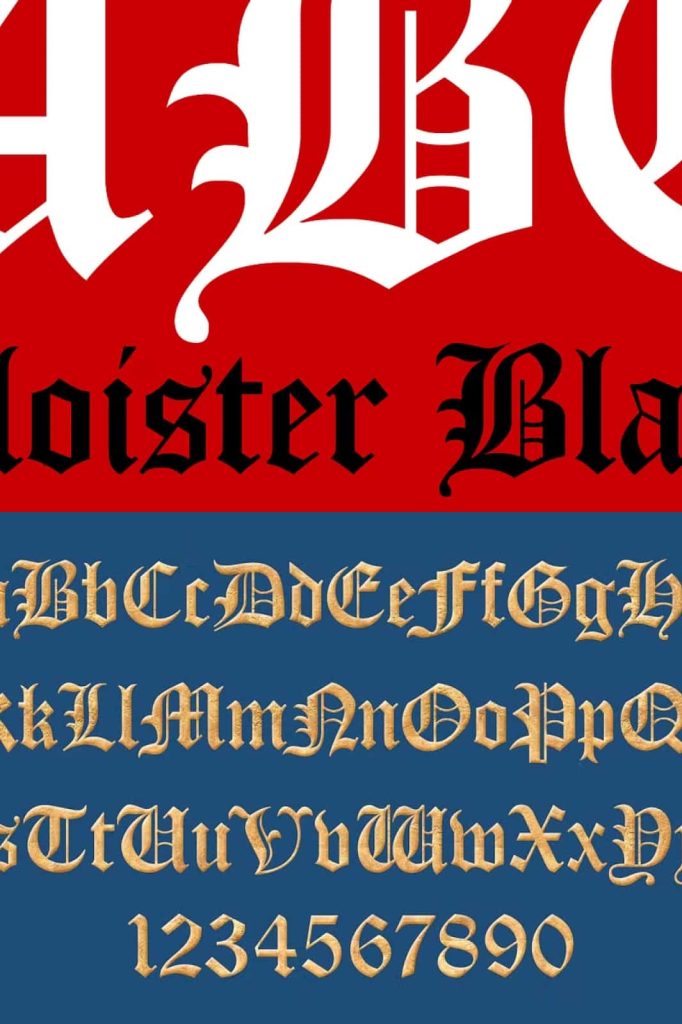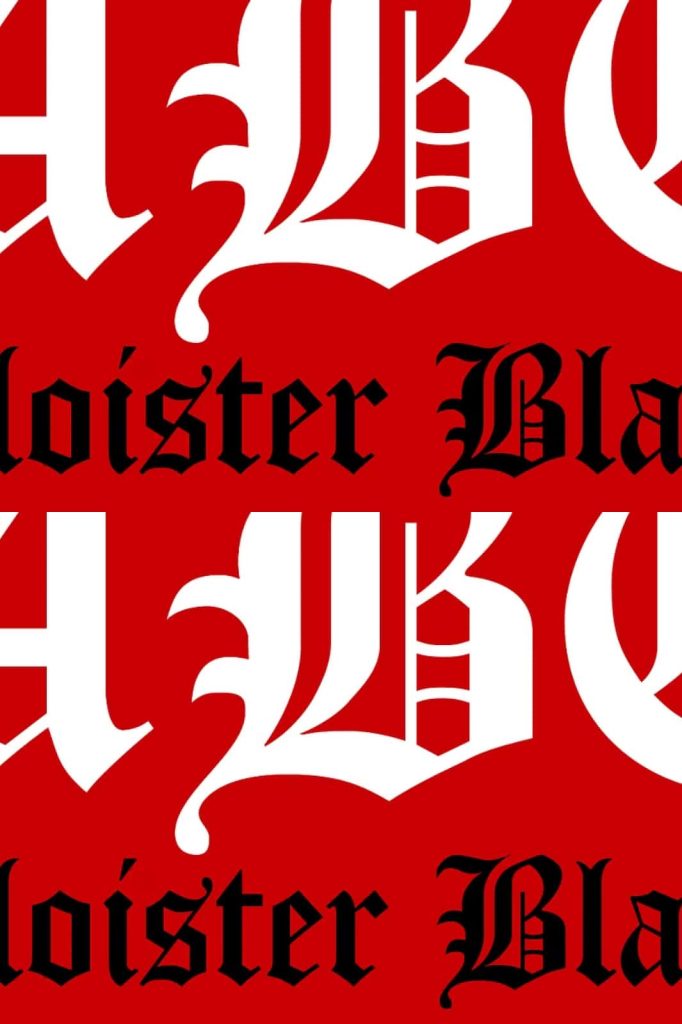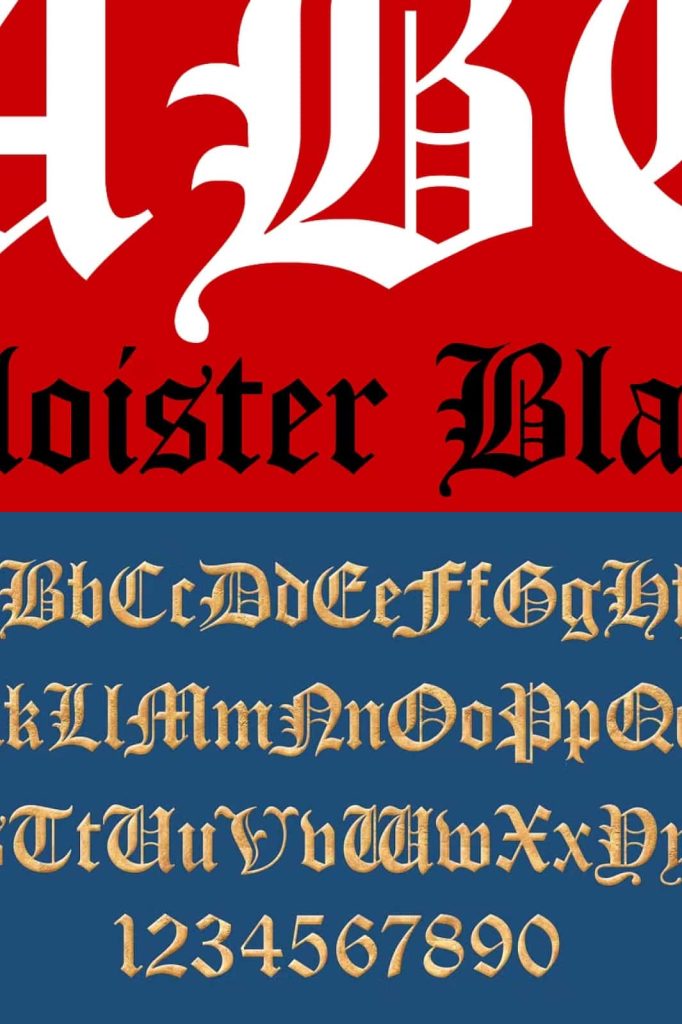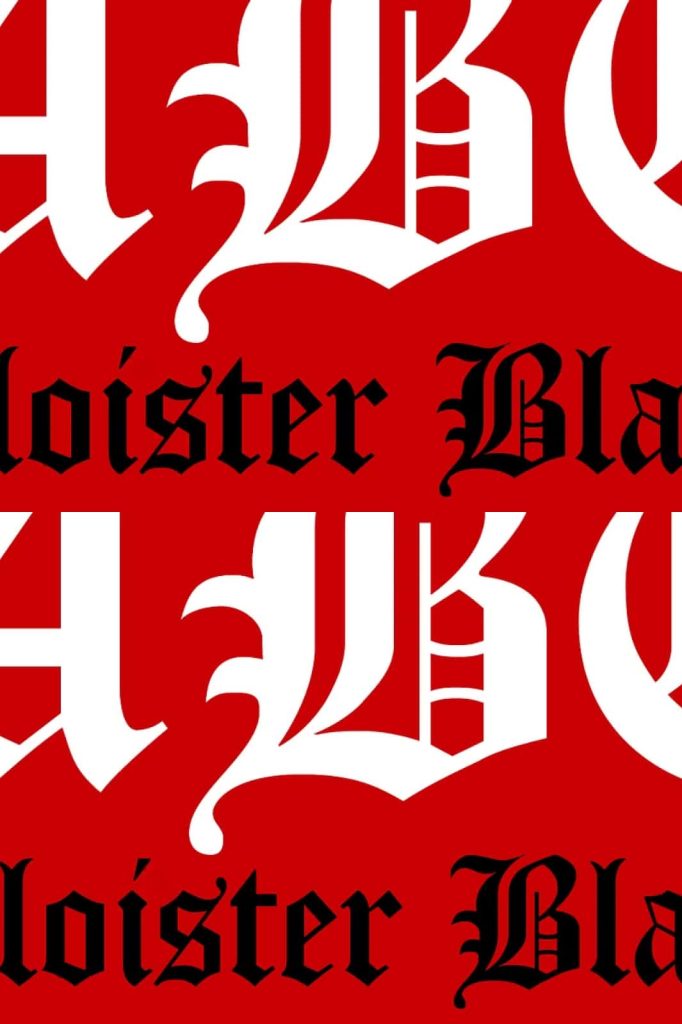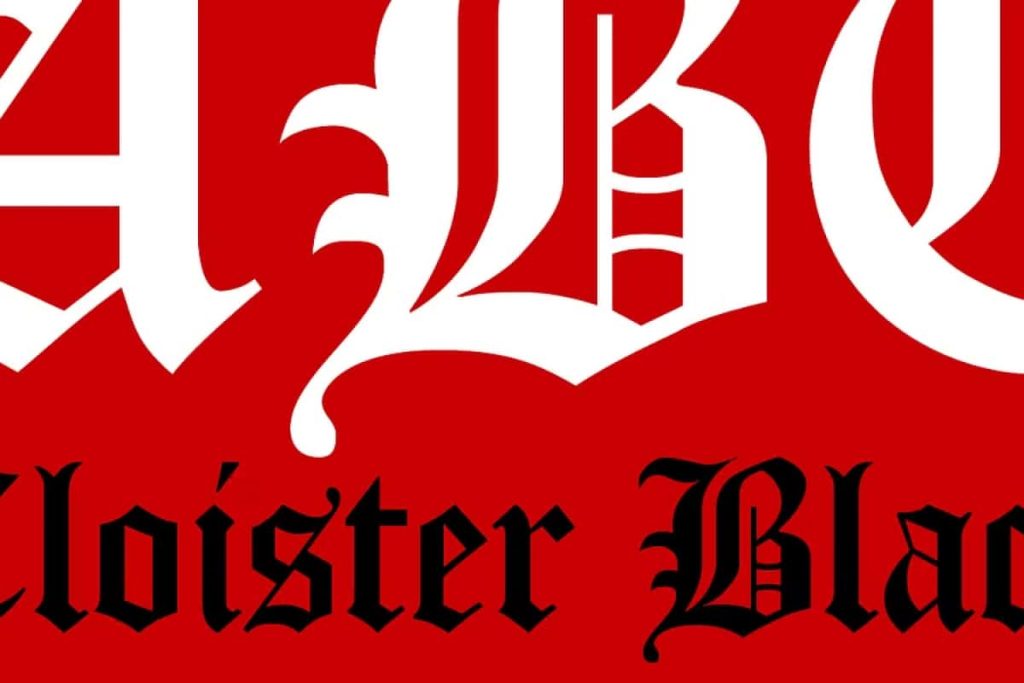
Cloister Black CT
A clean-cut blackface type, originally designed by the American type designer, Morris Fuller Benton, in 1904. See also Goudy Text CT and Goudy Lombardy for other blackletter fonts.